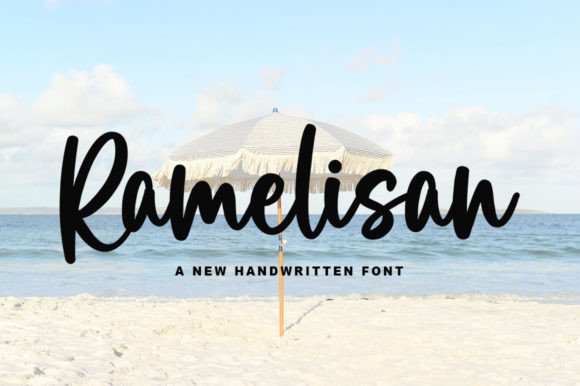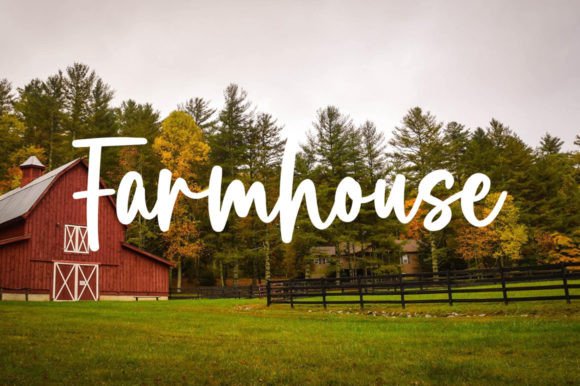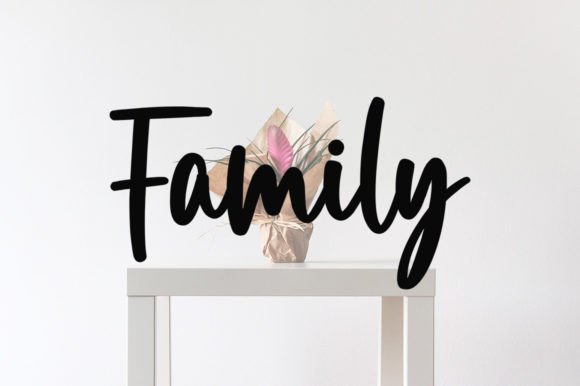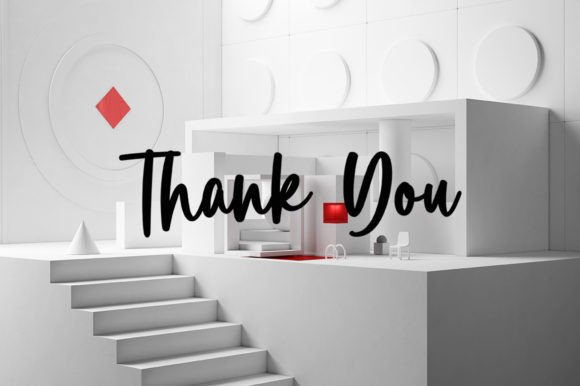
About Ramelisan
Ramelisan is a delicate, elegant, and flowing handwritten font perfect for your favorite projects. Fall in love with its incredibly distinct and timeless style, and use it to create spectacular designs!